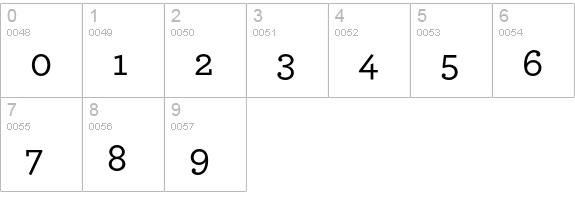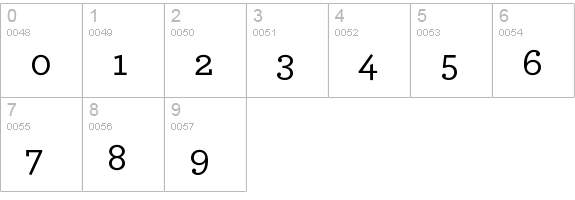
Archer Medium is a balanced, medium-weight variant in the Archer typeface family \xE2\x80\x94 well suited to sub-headlines, navigation, and balanced editorial work.
Archer Medium is a versatile and elegant font that strikes the perfect balance between modernity and traditional design elements. With its clean lines and subtle curves, this typeface exudes sophistication and professionalism, making it ideal for a wide range of design projects. What sets Archer Medium apart is not just its timeless aesthetic appeal, but also the fact that it is free for personal and commercial use. This means that you can download and use this font without any restrictions, allowing you to bring your creative ideas to life without any limitations. For those looking to elevate their typography game, Archer Medium is a must-have addition to your font collection. You can freely download this font at FontsMarket.com and experience the seamless blend of style and functionality that Archer Medium has to offer.